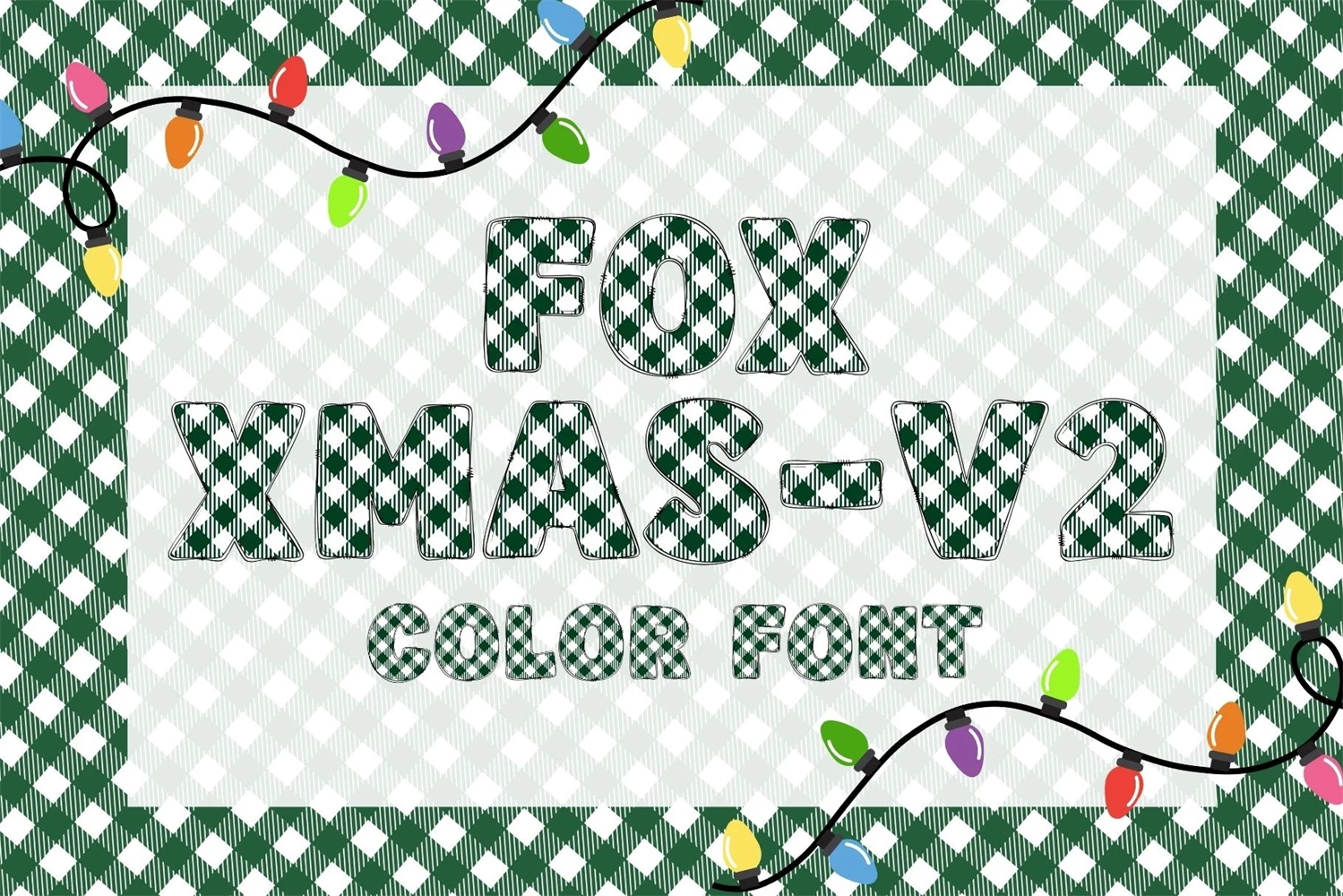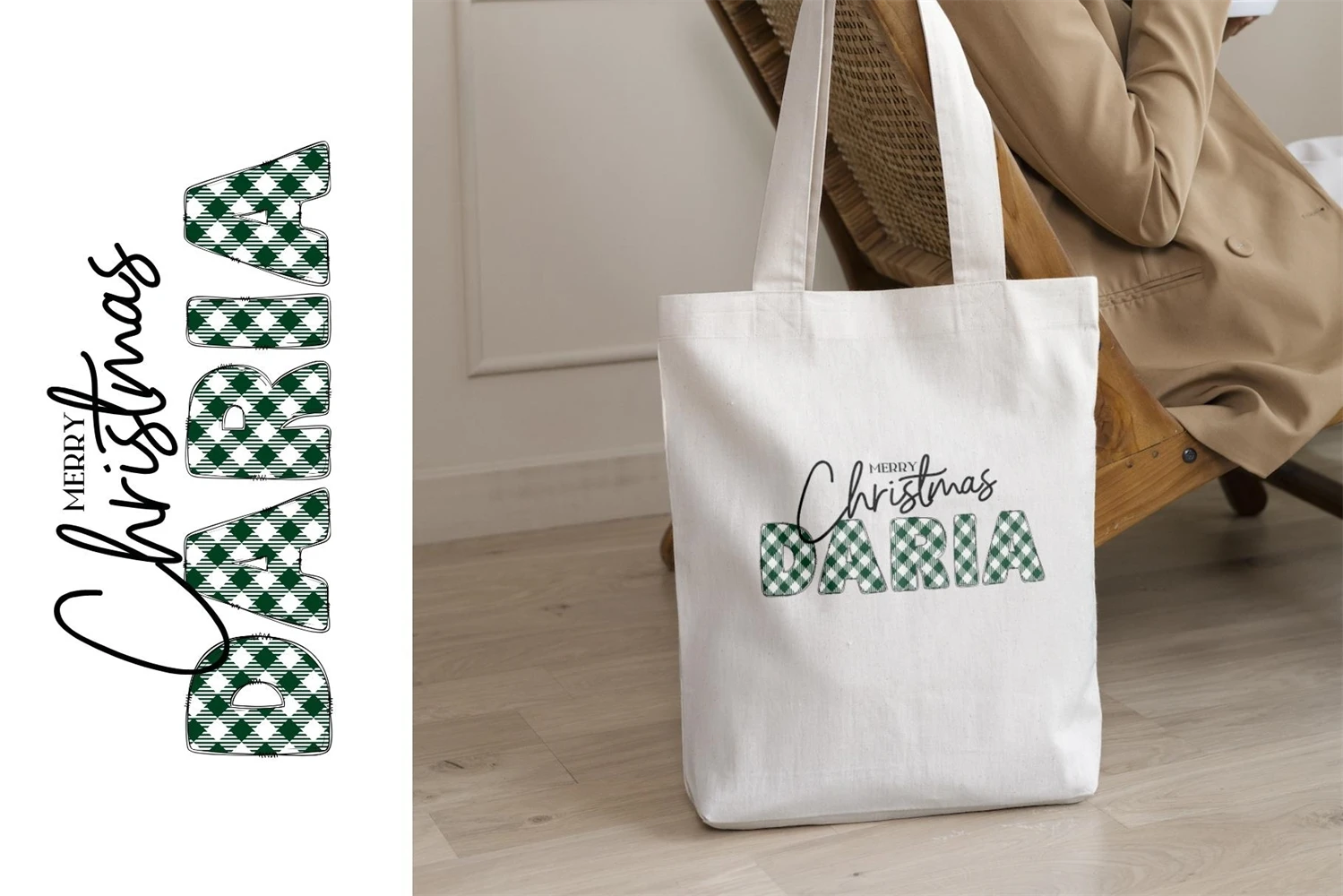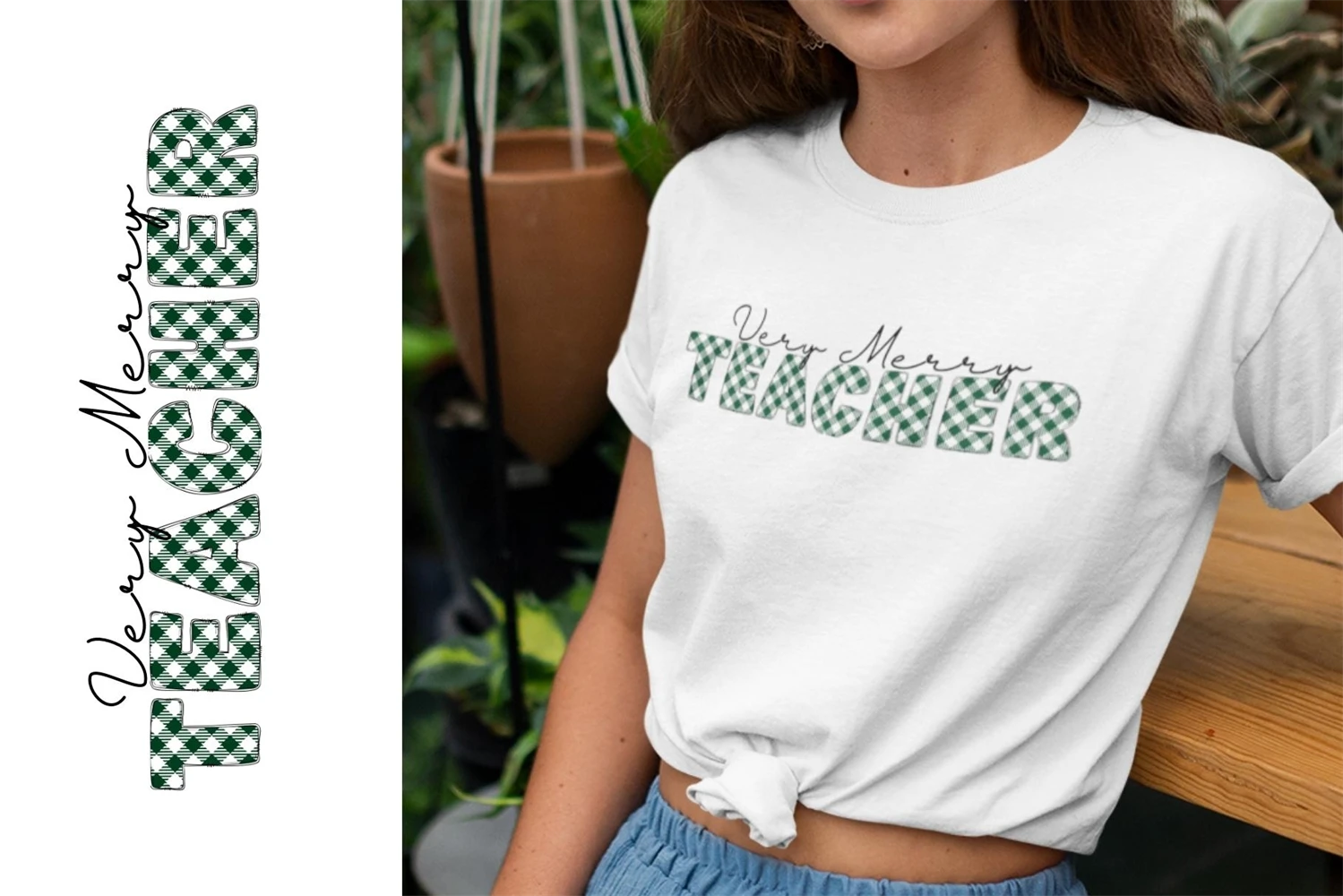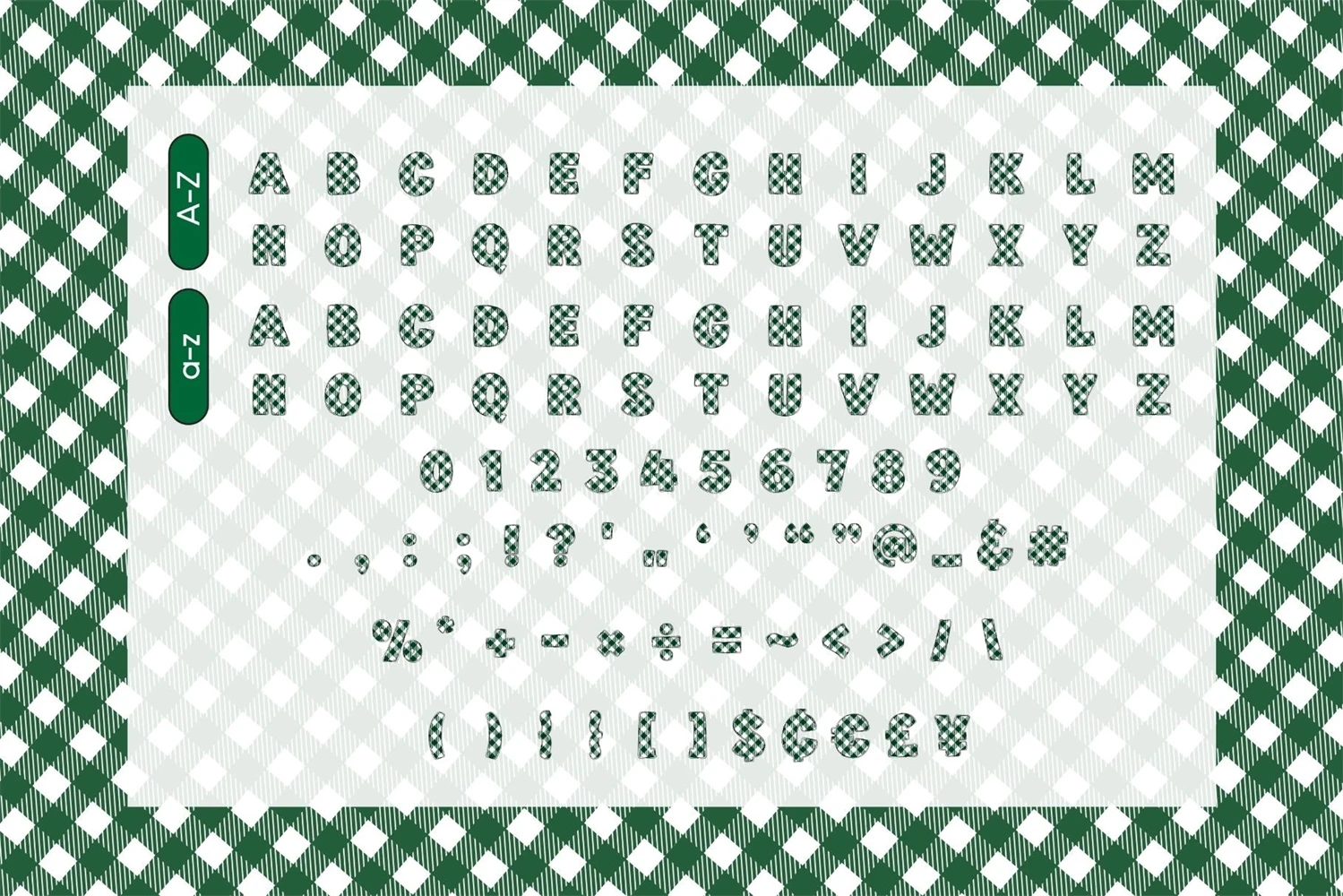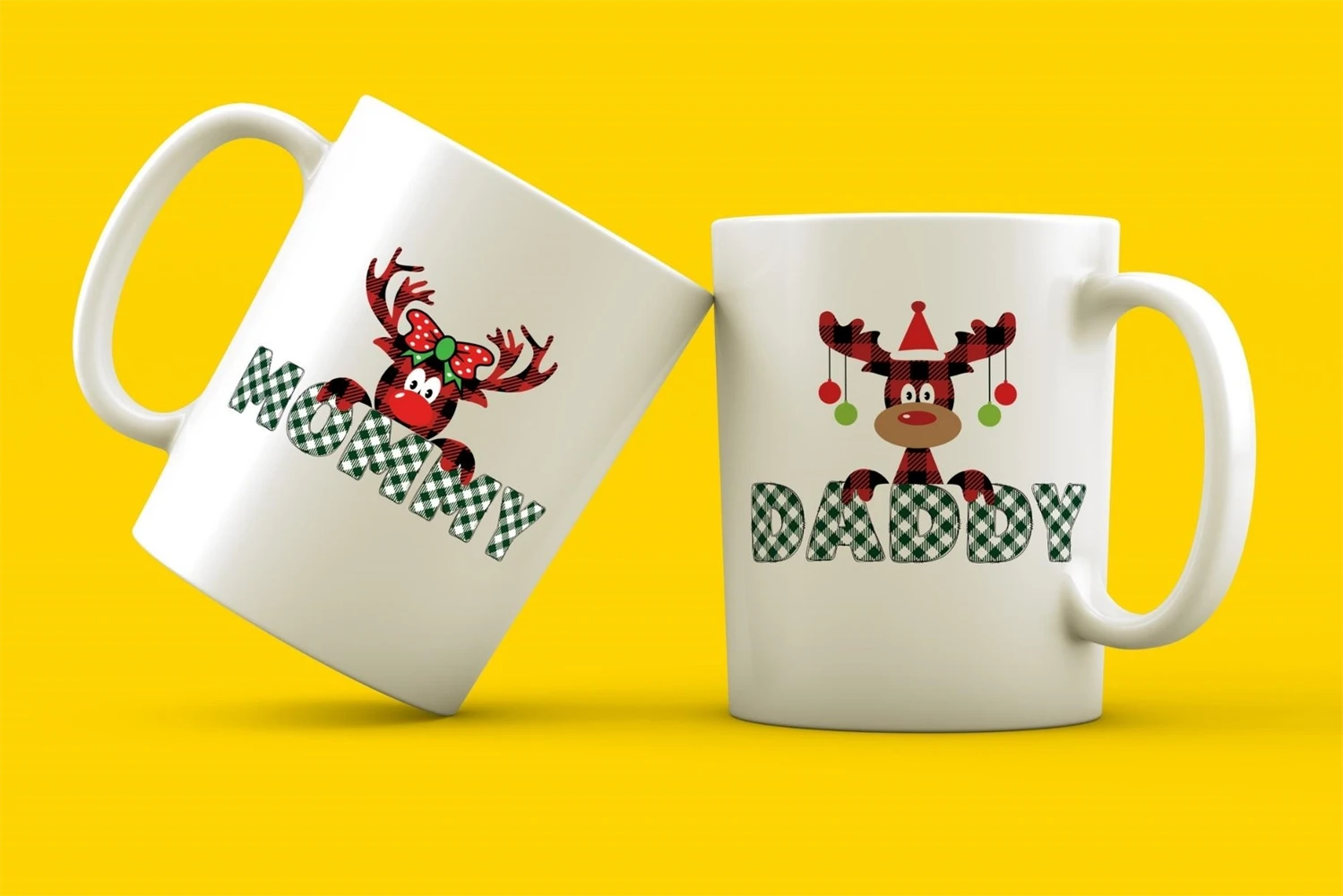
Fox Xmas-V2 is a cute and festive decorative color font. Fall in love with its authentic feel and use it to create gorgeous invitations, beautiful stationary art, eye-catching social media posts, and cute greeting cards. Add this beautiful font to each of your creative ideas, and notice how it makes them stand out.